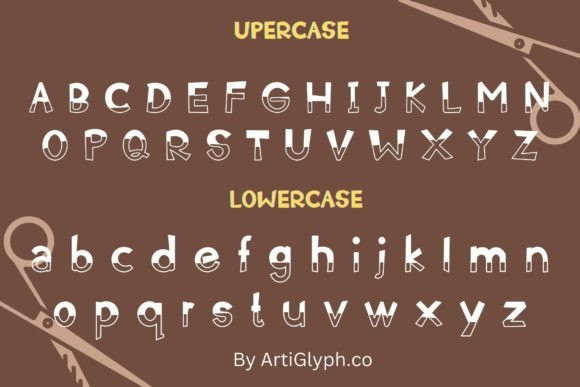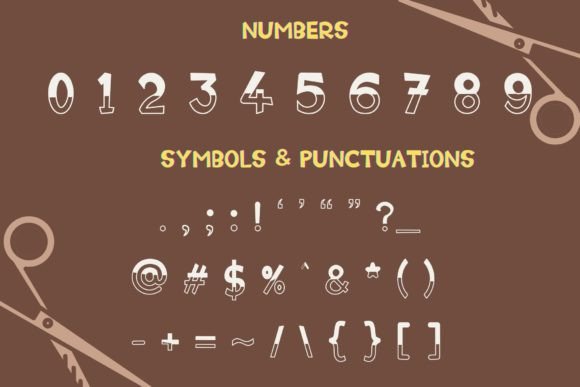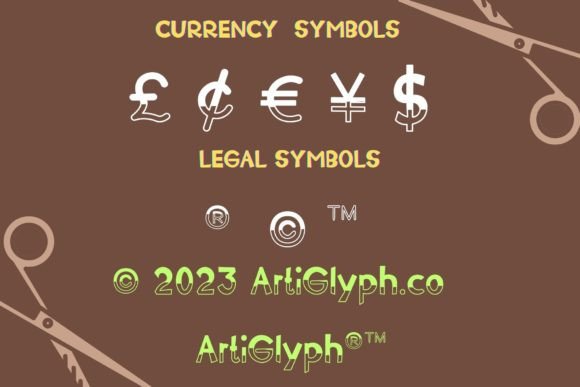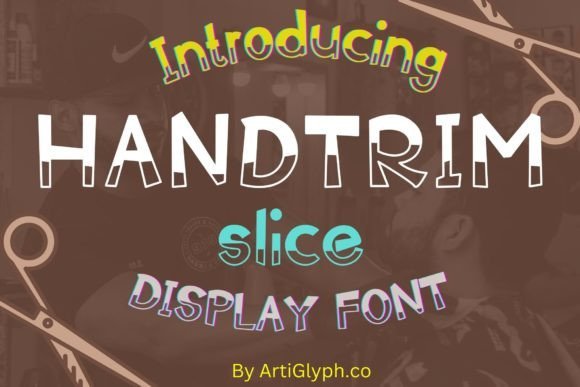
HandTrim Slice is a modern decorative cute handwritten font with a fun and quirky personality.
Its irregular and playful letterforms create a sense of whimsy and individuality, making it perfect for designs that require a touch of uniqueness Its natural, handwritten style adds a charming and personal feel to any project.